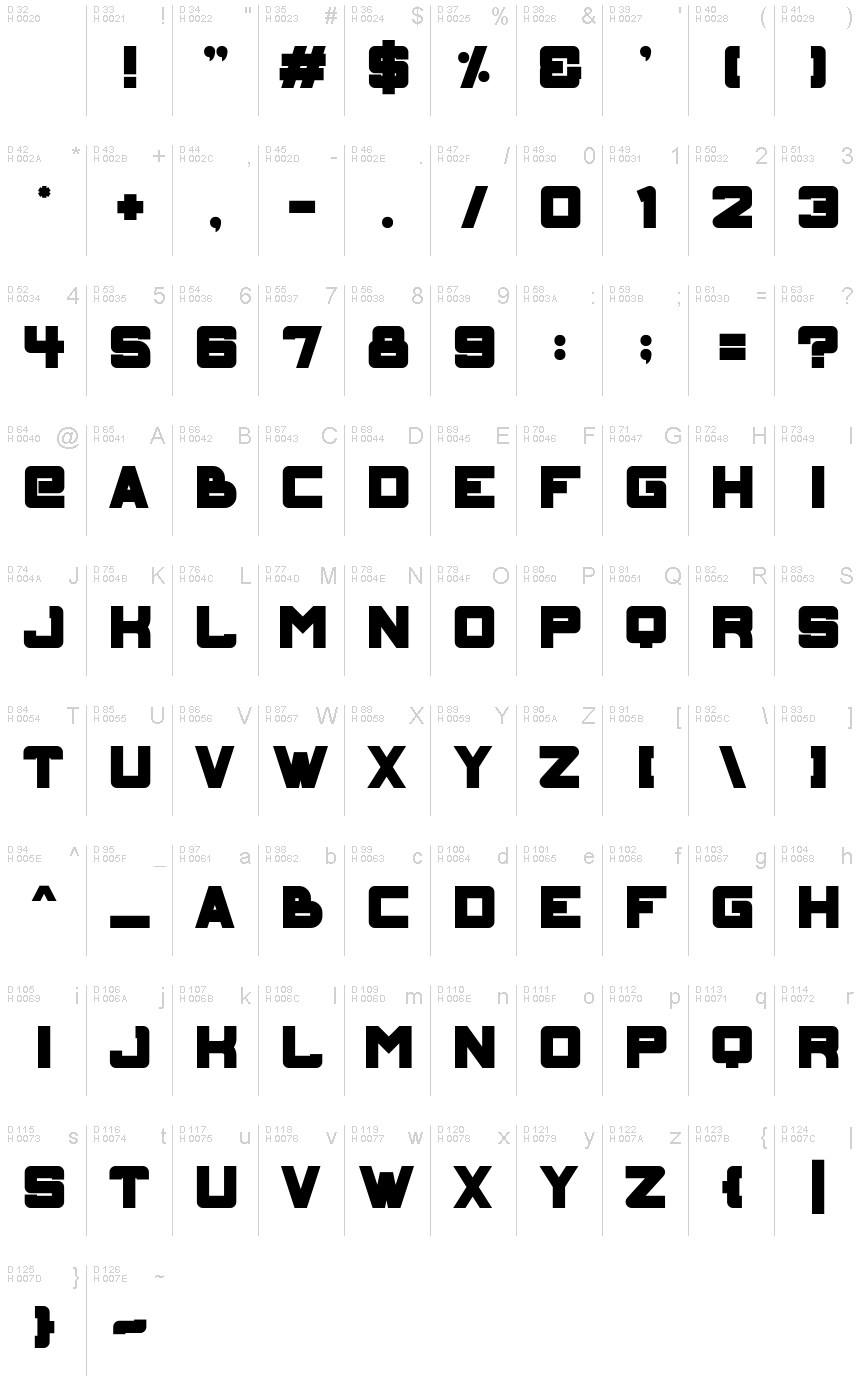
Gordion
Gordion is a display font crafted by Letterayu that transports viewers into a realm of futuristic elegance. Its bold strokes and expanded form give it a commanding presence, while the sleek lines suggest speed and motion, evoking the essence of avant-garde technology and innovation.
The striking design of Gordion makes it ideal for projects that require a strong visual impact, such as branding for tech startups, posters for sci-fi events, or titles in digital media where a touch of modernity is essential. Its assertive appearance pairs well with clean layouts, ensuring that any text stands out with confidence and style.